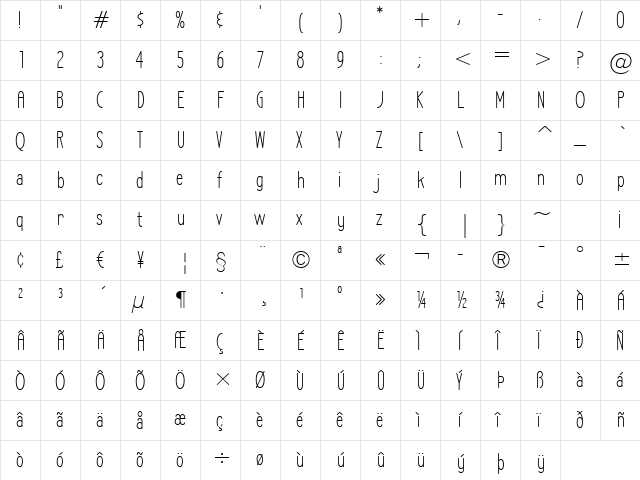
LA Headlights BTN Cond Lt Regular Font Preview
Design Context for LA Headlights BTN Cond Lt Typeface
LA Headlights BTN Cond Lt offers clean, dependable letterforms without strong stylistic allegiance, making it a practical choice for designers who need flexibility. The delicate stroke weight brings airiness and refinement to layouts. The condensed width makes it efficient for tight spaces without sacrificing legibility.
Pro Tip: Pair LA Headlights BTN Cond Lt with a font of contrasting weight or personality to build a more expressive typographic hierarchy.